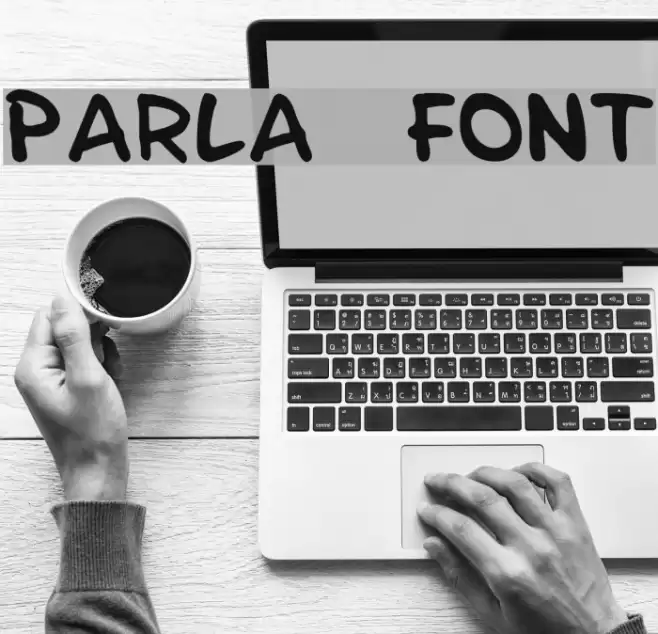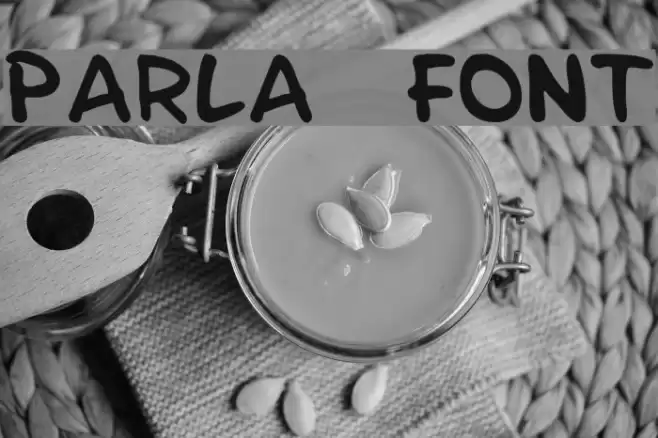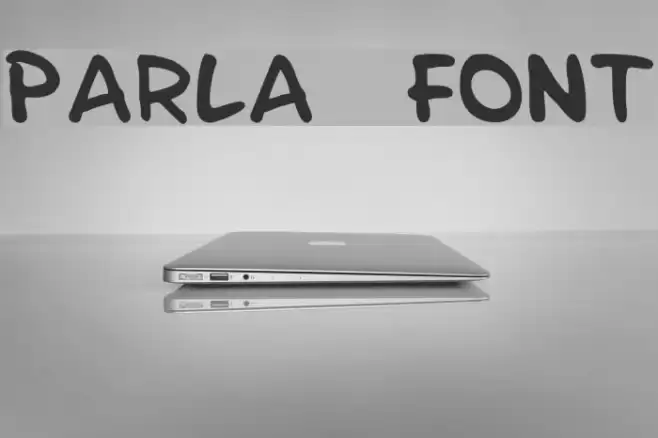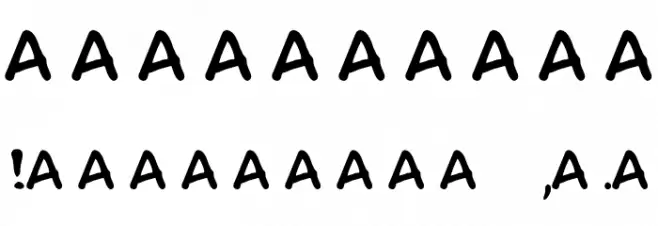
Parla Font
Parla Description
This font features a playful and bold style with rounded edges and a slightly irregular baseline, giving it a hand-drawn appearance. The characters are thick and well-spaced, making them highly legible. The uppercase and lowercase letters maintain a consistent style, with a slight tilt that adds to the casual, informal feel. The numbers and special characters are designed to match the overall aesthetic, ensuring uniformity across all text elements. This font is ideal for projects that require a friendly and approachable look, such as children's books, posters, and informal branding.
A playful, bold font with rounded edges and a hand-drawn feel from Uncategorized fonts.
- Proposed Projects: Children's books, posters, informal branding, playful designs.
- Overall Style: Playful, Informal